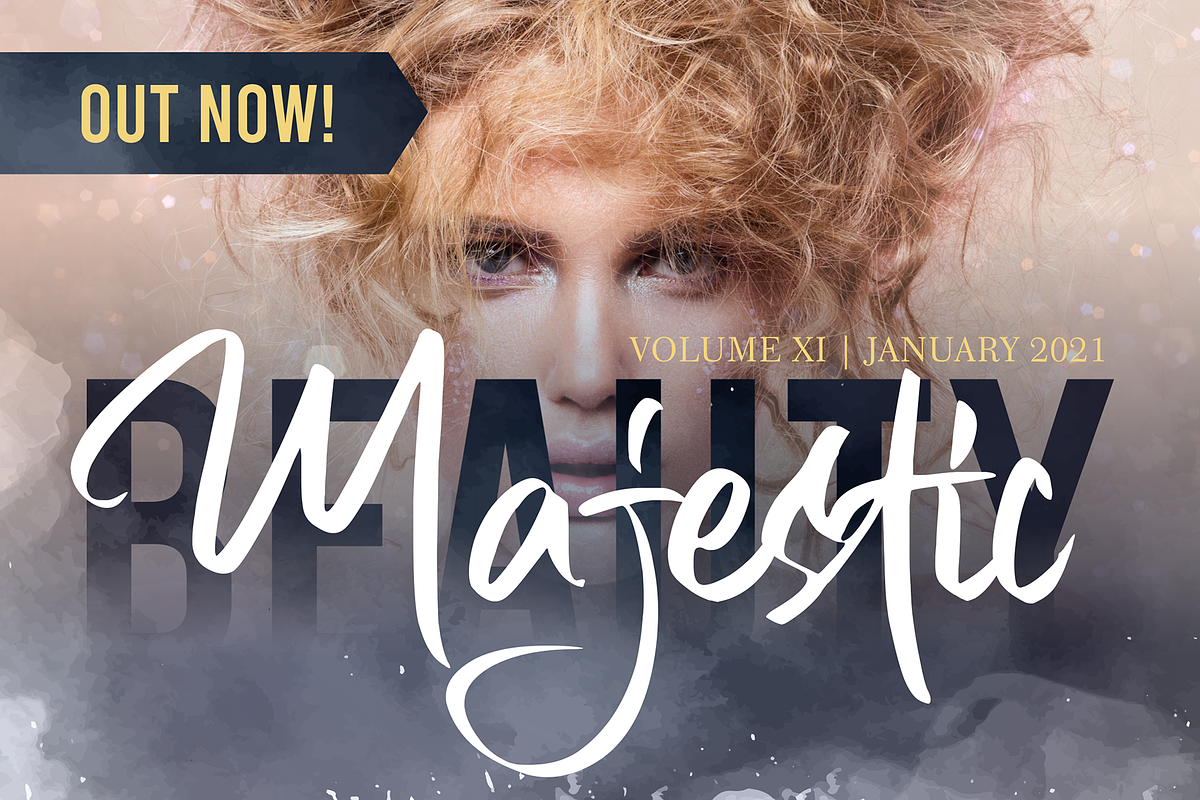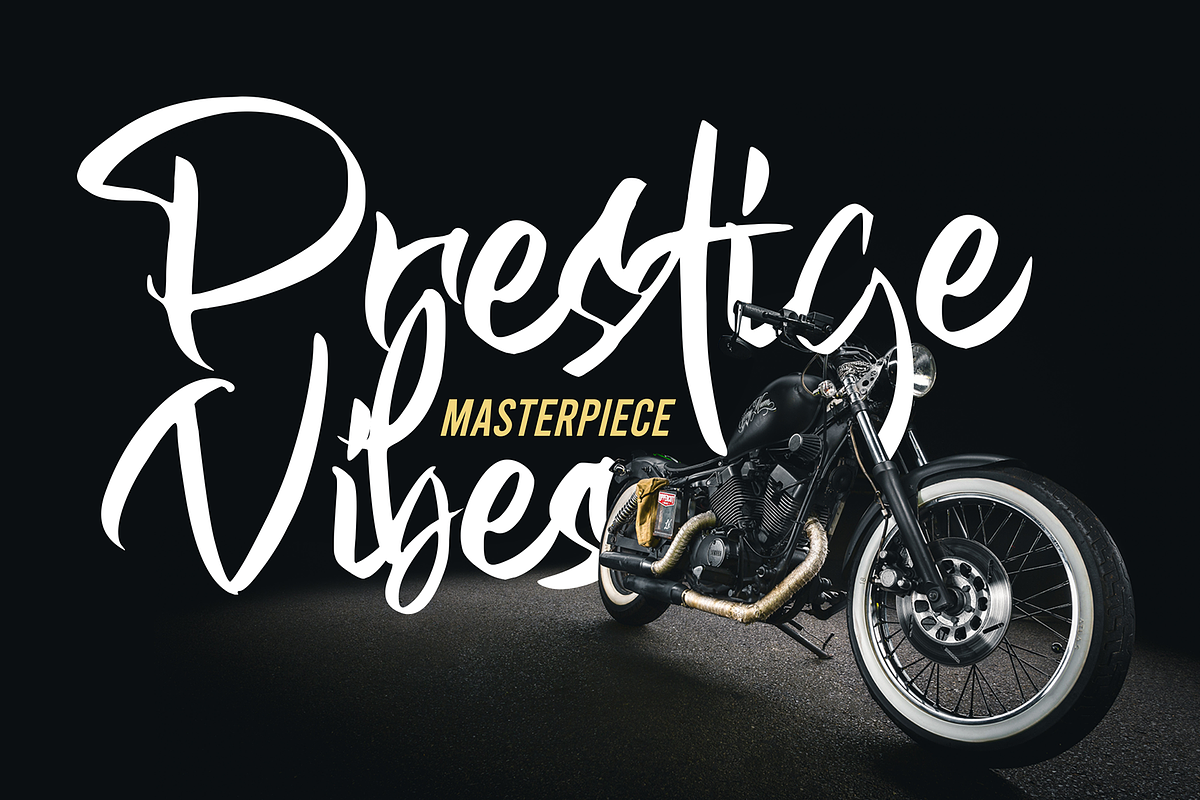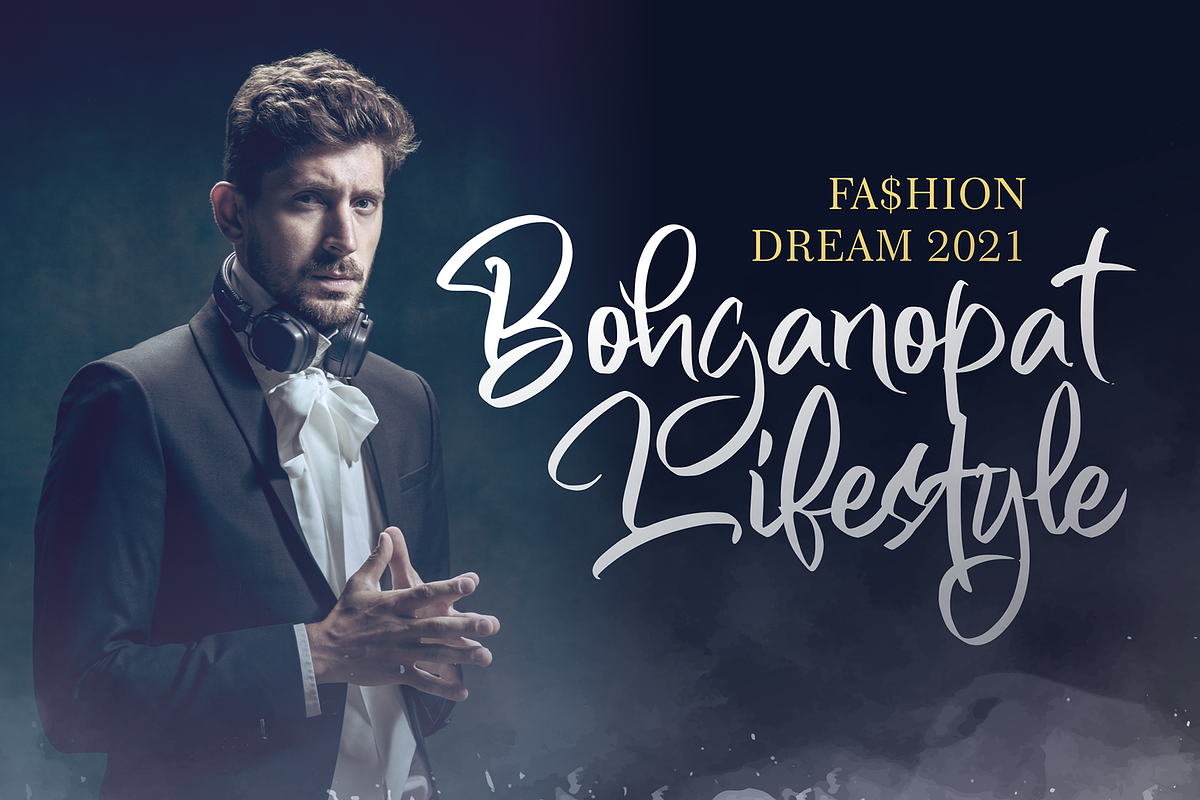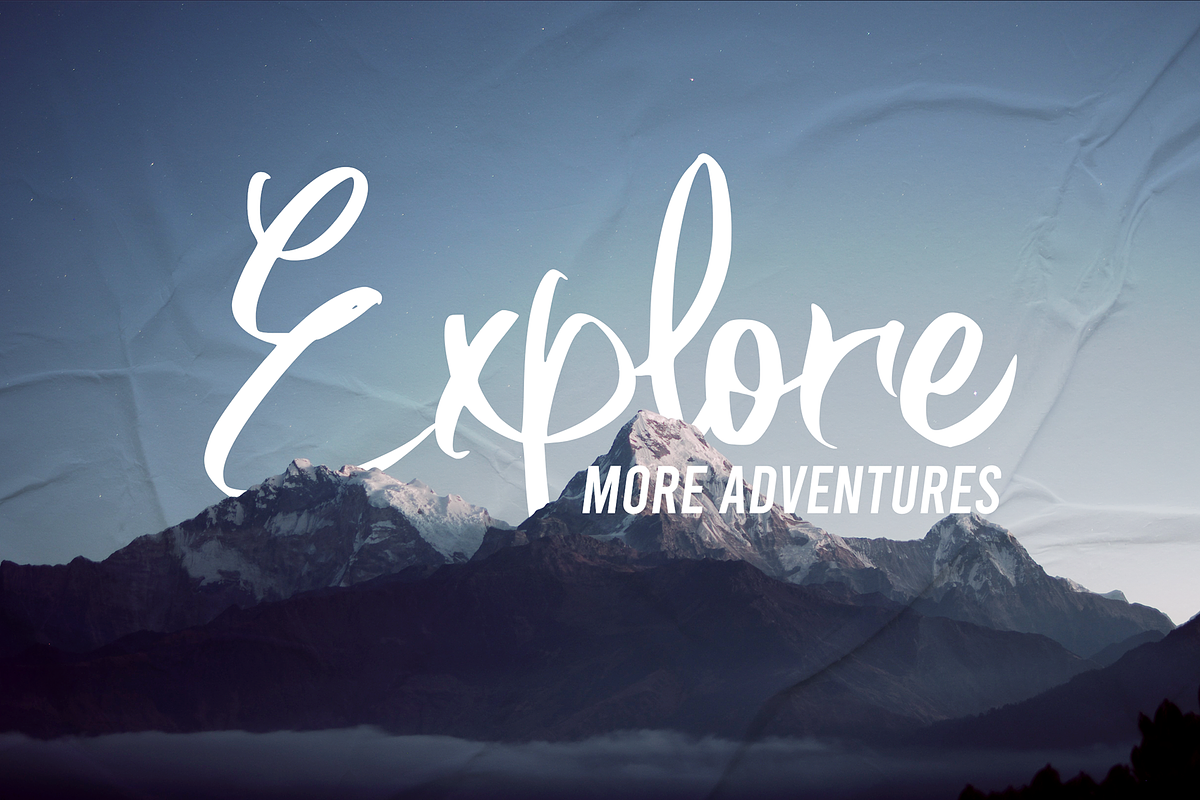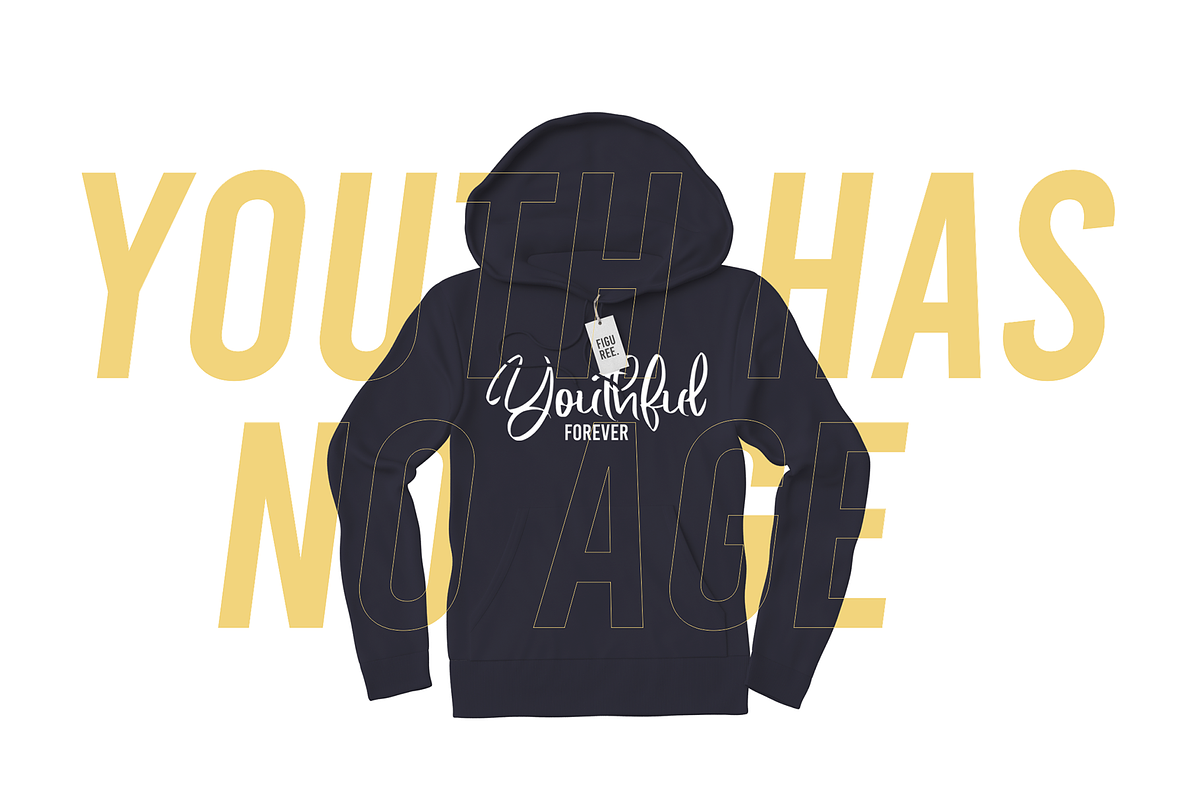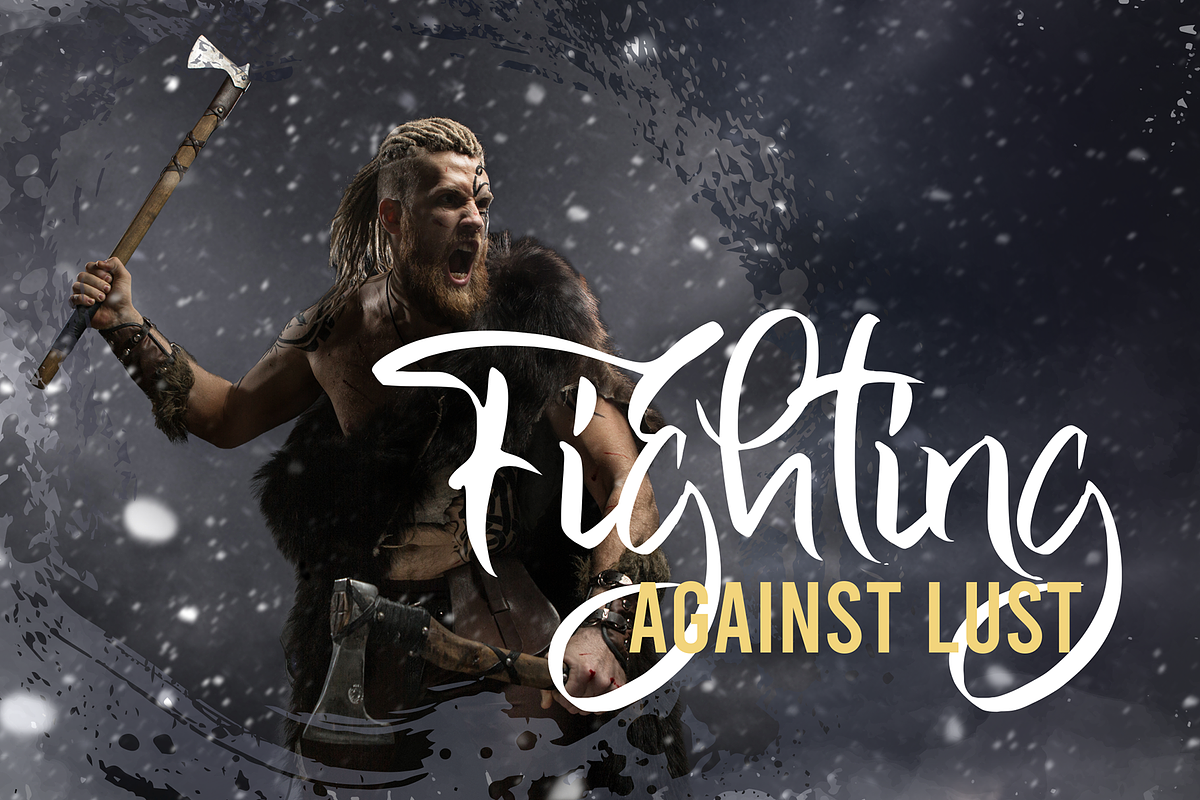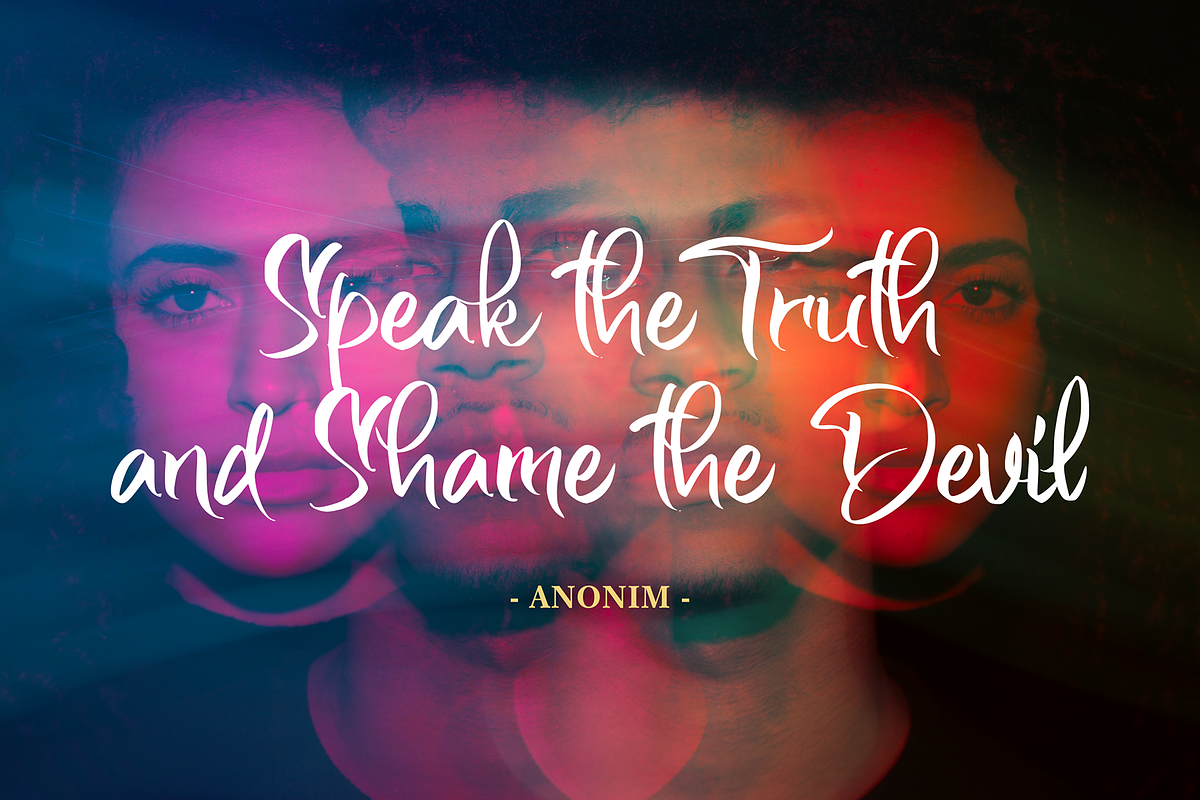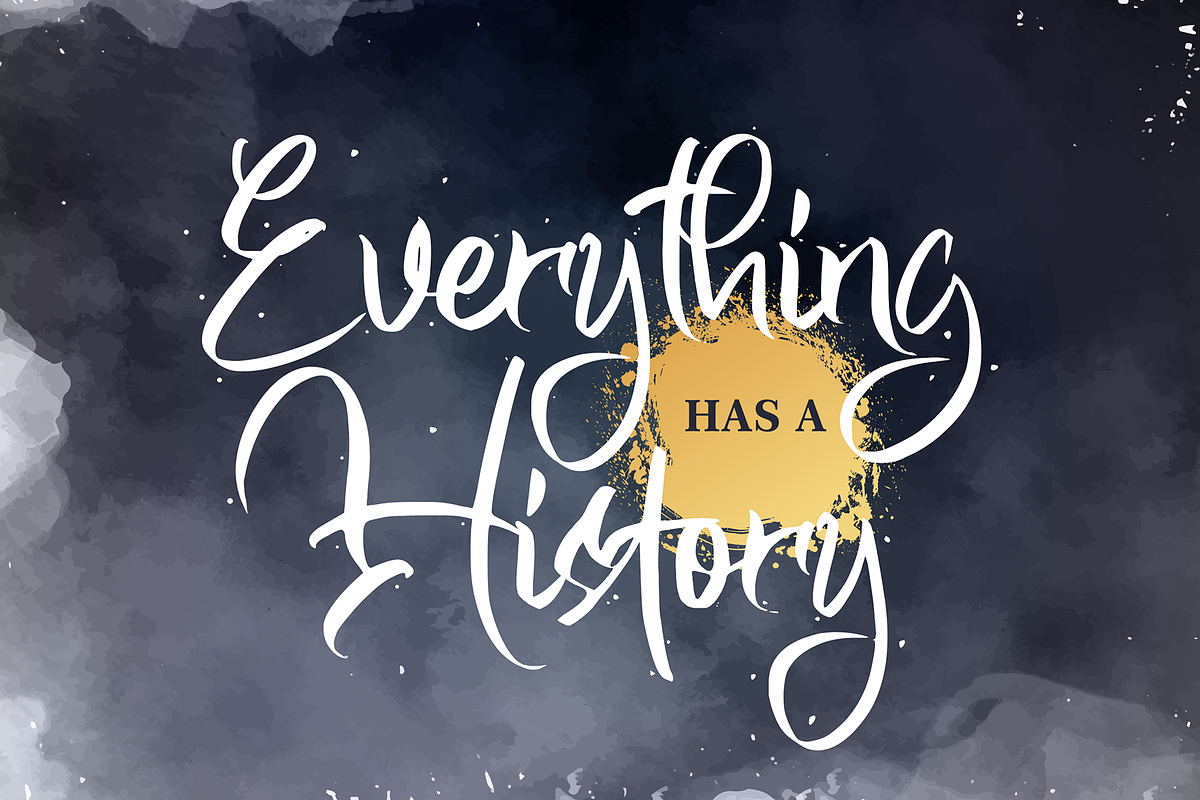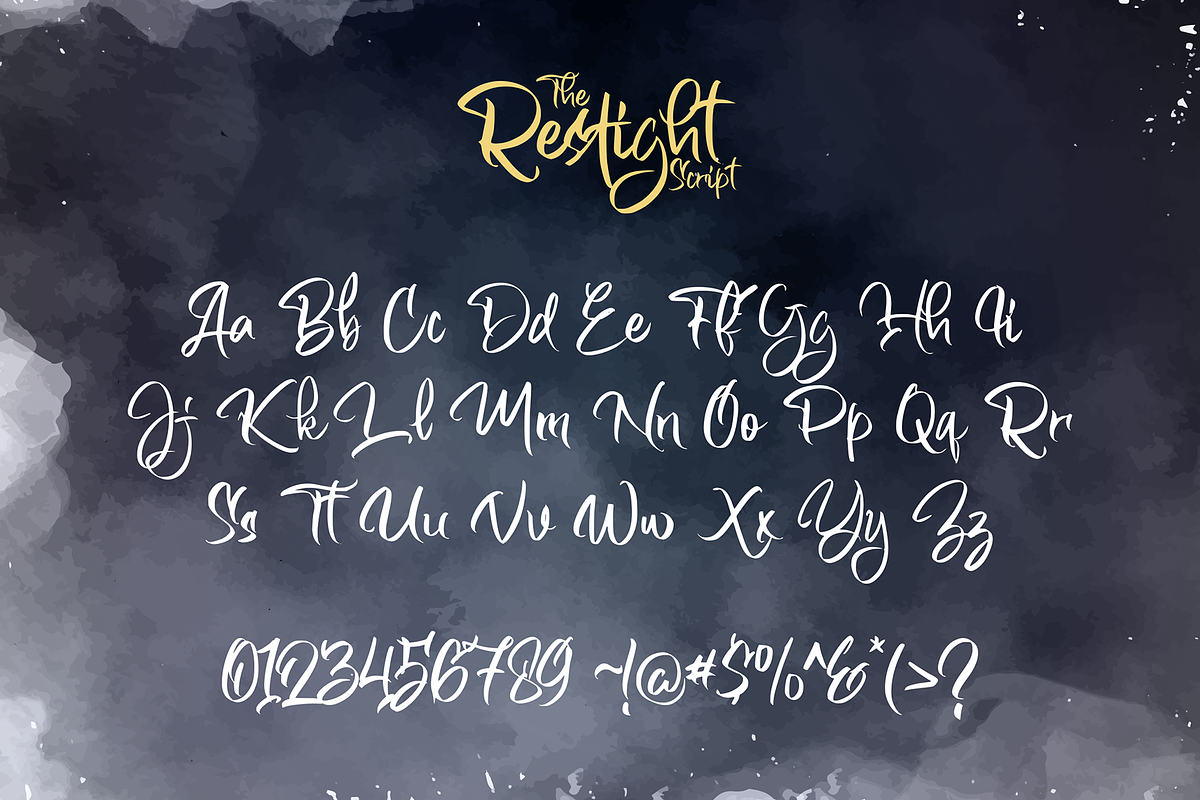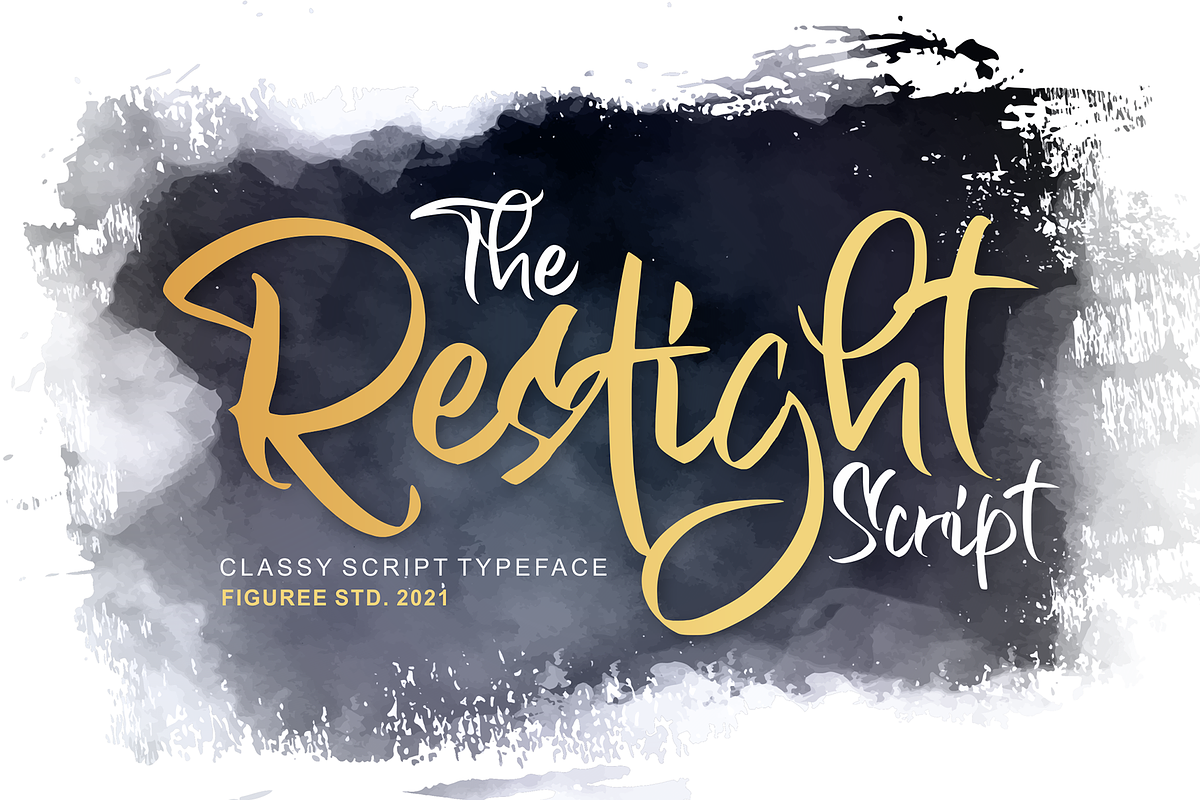
The Restight Script
Introducing The Restight Script!
The Restight Script! is classy hand-drawn brush font that combines attractive curves with a fresh urban edge; delivering a stylish brush font that is guaranteed to add an eye-catching appeal to your logo designs, brand imagery, handwritten quotes, product packaging, merchandise, social media post, or website font.
- Number and Punctuation
- Versatile for branding, headline, or printing product
- Detailed dry brush markers